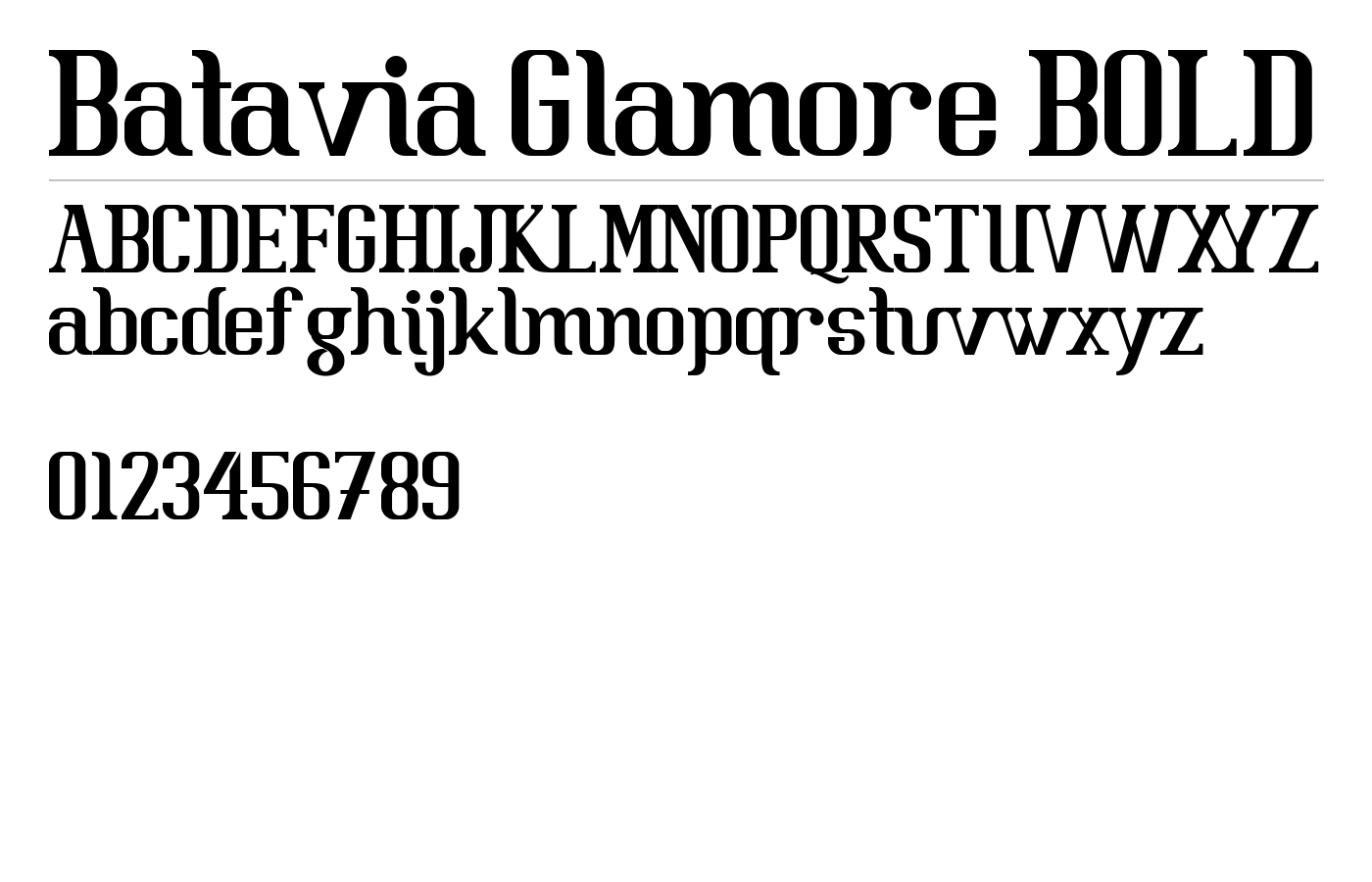
Batavia Glamore NORMAL is a bold, condensed serif font that combines vintage charm with a contemporary edge through its high contrast strokes and sharp, bracketed serifs. Its distinctive letterforms, such as the double-story 'g' and unique flourishes on characters like 'Q' and 'R', give it an elegant, sophisticated personality suited for impactful headlines, luxury branding, and editorial designs. This font works best where a strong, stylish presence is needed, lending a refined yet modern feel to logos, posters, and upscale packaging.
Batavia Glamore NORMAL Font
About Batavia Glamore NORMAL Font
| Designer | Zulfikar Ali |